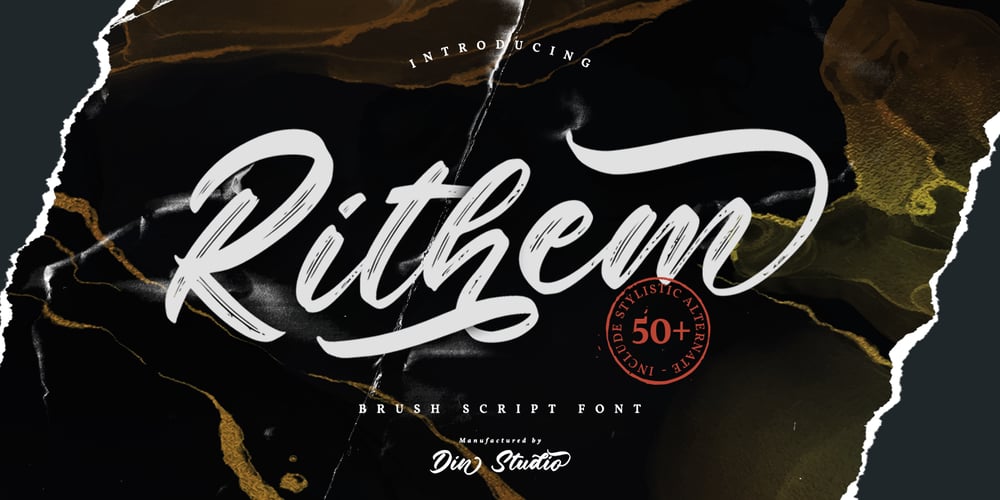
Rithem
Rithem font
Rithem Font Family was designed by Donis Miftahudin and published by Din Studio. Rithem contains 1 styles and family package options. Rithem is a classy brush font. The brush combined with calligraphy font will make your design project more powerful. Made for any professional project branding. It is the best for logos, branding and quotes. Every letter has a unique and beautiful touch.Features: Multilingual Support PUA Encoded Numerals and Punctuation Thank you for downloading from Din Studio.